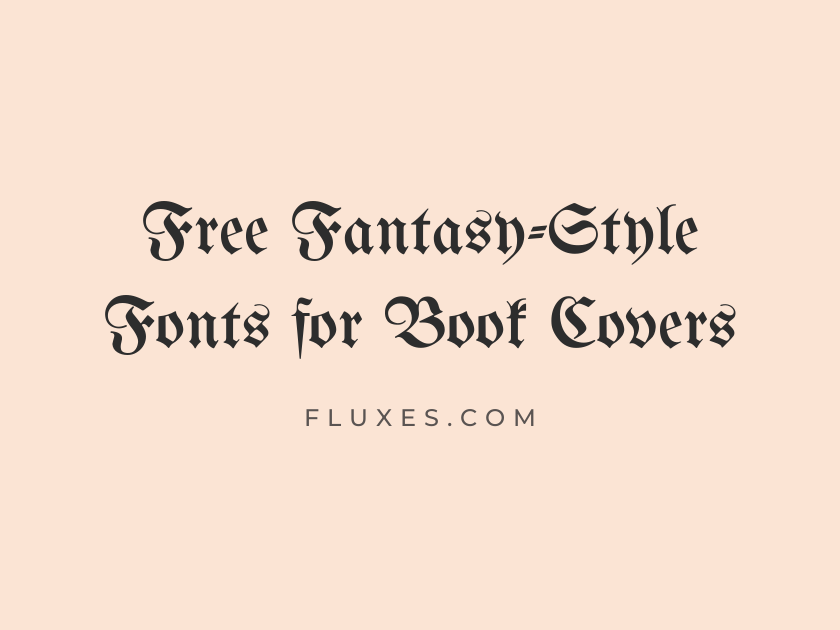
72 Best Free Fantasy-Style Fonts for Book Covers
The best fantasy book covers earn their spell before a reader ever cracks the spine, and most of that magic comes down to type. A blackletter flourish, a carved-stone capital, a hand-inked swash: these details signal genre, mood, and era faster than any blurb. Every font recommended here is free to download on Google Fonts, so indie authors, small presses, and cover designers can build a full title-and-subtitle system without licensing headaches.
1. UnifrakturMaguntia
This is the blackletter that launches a thousand D&D campaign covers, and for good reason: its jagged, ink-heavy strokes feel carved by a medieval scribe rather than drawn on a screen. Reserve it for short titles set large; at body-copy sizes the dense verticals turn to visual noise.
2. UnifrakturCook
A slightly rounder, friendlier cousin to UnifrakturMaguntia, this one softens the gothic edges just enough to stay legible on busy cover art. It pairs nicely with a clean sans for author name and tagline, letting the blackletter carry all the drama alone.
3. Pirata One
Built for pirate lore and swashbuckling adventure, this display face leans gothic without tipping into horror. It suits sea-faring fantasy, treasure-hunt plots, and any cover that wants a weathered, wanted-poster feel.
4. MedievalSharp
A staple of fantasy branding for a reason: it reads as unmistakably medieval without the fussiness of true blackletter. Use it sparingly on covers, since its charm fades at small sizes, but it earns its keep on logos, chapter headers, and title treatments.
5. Grenze Gotisch
A variable gothic display that ranges from thin and etched to heavy and imposing depending on the weight chosen. Heavier cuts feel monumental on epic fantasy covers, while lighter weights work as ominous section dividers inside the book itself.
6. Germania One
Chunky, angular, and unmistakably Germanic in feeling, this face carries the weight of old fortress gates and iron-bound chests. It works best paired with a lighter serif for subtitles, since its bulk can overwhelm a cover on its own.
7. Fruktur
A lighter-touch blackletter with a handwritten, almost fairy-tale quality. It suits cozy or whimsical fantasy better than grimdark epics, especially stories involving witches, folklore, or enchanted forests.
8. Ruslan Display
Inspired by old Russian and Slavic decorative lettering, this face brings a distinct Eastern European fairy-tale flavor that is hard to find elsewhere in the free font world. It is a smart pick for stories drawing on Slavic mythology, ice kingdoms, or folk-horror themes.
9. Eagle Lake
Elegant and calligraphic, this blackletter alternative feels more like illuminated manuscript lettering than a battle standard. It flatters romantic or courtly fantasy where swordplay shares the page with intrigue and ceremony.
10. Cinzel Decorative
Carved from the same Roman-inscription DNA as Cinzel but dialed up with ornamental swirls, this face looks like it belongs chiseled into a temple archway. It is a favorite for mythic and historical fantasy titles that want gravitas without going gothic.
11. Cinzel
The clean, classical counterpart to its decorative sibling, Cinzel channels Roman capitals into something suited to epic and mythological fantasy. It reads beautifully at large title sizes and holds up just as well on spines and author credits.
12. Almendra
Soft, slightly quirky serifs give this face a storybook warmth that feels handset rather than digital. It leans gothic-romantic, making it a natural fit for haunted houses, fae bargains, and Victorian-tinged fantasy.
13. Almendra SC
A small-caps-only variant of Almendra, useful for author names or subtitles that need to feel formal without competing with a louder title font above them. Its texture reads best in short bursts rather than full sentences.
14. Almendra Display
The boldest member of the Almendra family, with thick, ornamental strokes built for headline duty. It has real presence on a cover thumbnail, which matters when most readers first meet a book at postage-stamp size online.
15. Uncial Antiqua
Uncial Antiqua
Modeled on the rounded lettering of early medieval manuscripts, this face evokes monasteries, ancient scrolls, and lore passed down through generations. It suits prologues, in-book chapter titles, and covers built around ancient or forgotten knowledge.
16. Metamorphous
Magic Bends the Rules of Time
Metamorphous
Dense, slightly rune-like letterforms give this font an occult, alchemical mood. It works well for dark academia fantasy, secret societies, and anything involving forbidden spellbooks.
17. Yeseva One
Queens of the Shattered Realms Rise
A bold, old-style display serif with a generous flourish on its curves, striking a balance between elegant and dramatic. It feels at home on romantasy covers that want richness without tipping into full gothic horror.
18. Macondo
Beyond the Veil, Another World Waits
Macondo
Playful and slightly rustic, this face carries a fairy-tale, hand-lettered warmth suited to middle-grade and young-adult fantasy. It avoids looking too serious, which makes it useful for lighter, adventure-driven stories.
19. Macondo Swash Caps
Once Upon a Broken Kingdom
Macondo Swash Caps
The swash-heavy companion to Macondo, best used for a single dramatic word or an opening capital rather than a full line. Drop it into a title’s first letter for an illuminated-manuscript effect without switching fonts entirely.
20. Fondamento
Ink and Parchment, Secrets Untold
Fondamento
A calligraphic, hand-inked face styled after old-world penmanship, ideal for map lettering, letters within the story, or covers built around a journal or grimoire conceit. Its slightly imperfect strokes add authenticity that a cleaner script cannot fake.
21. Caudex
The Chronicles of a Forgotten Age
Caudex
A sturdy, classical serif with wide, confident letterforms reminiscent of old academic typesetting. It anchors a cover well as a subtitle or author-name font beneath a louder, more decorative title face.
• Language support: Latin, Latin Extended, Greek, Greek Extended, Runic, Vietnamese
22. Marcellus
Heirs to a Long-Lost Throne
Understated and refined, this serif carries a restrained regal quality without any of the theatrics of blackletter. It suits political fantasy and courtly intrigue where the story’s tension comes from words, not swords.
23. Marcellus SC
THE COUNCIL OF SEVEN KINGDOMS
Marcellus SC
Marcellus rendered entirely in small caps, useful for author names, series branding, or a subtitle line that needs formality without shouting. Its evenness makes it an easy, low-drama pairing partner for busier display fonts above it.
24. Della Respira
Petals Fall Where the Fae Once Danced
Della Respira
An art-nouveau-inflected serif with delicate, almost botanical detailing on its strokes. It flatters fae, garden-magic, and romantic fantasy covers far better than it does grim battle epics.
25. Vidaloka
A Kingdom Built on Broken Promises
Vidaloka
Cinematic and slightly theatrical, this serif has the confident stance of a movie-poster title card. It reads well at both hero-image scale and thumbnail size, which makes it a dependable workhorse for cover titles.
26. Amarante
Where Shadows Learn to Speak
Amarante
Bold, bubble-edged letterforms give this display face a mysterious, slightly theatrical air unlike anything else on this list. It draws the eye quickly, so it works best on covers with restrained artwork behind it.
27. Milonga
Songs of the Wandering Bard
Milonga
Loose and slightly whimsical, with ornamental serifs that recall old circus or vaudeville posters as much as fantasy manuscripts. It suits picaresque, bard-and-tavern style adventure fantasy with a lighter tone.
28. Aladin
Genies, Djinn, and Desert Magic
Aladin
Inspired by Arabian Nights lettering, this face brings an exotic, lamp-and-desert atmosphere that few other free fonts attempt. Use it thoughtfully and respectfully for stories genuinely set in that tradition rather than as generic decoration.
29. Bilbo
A Hobbit's Journey Begins at Home
Bilbo
Its name alone makes it catnip for Tolkien-adjacent covers, and the loose, looping script does carry a cozy, homely charm well suited to pastoral or cottagecore fantasy. It struggles at very small sizes, so keep it for titles rather than body text.
30. Bilbo Swash Caps
THE SHIRE REMEMBERS EVERY TALE
Bilbo Swash Caps
A swash-capital companion to Bilbo, best used sparingly for an opening letter or a short series name rather than a full sentence. It adds a hand-lettered flourish without needing a second script font.
31. Berkshire Swash
Love Enchanted, Bound by Fate
A rounded, confident script with plenty of swing in its connections, leaning more romantic than mythic. It works nicely on fantasy-romance covers as an accent word layered over a title set in a sturdier serif.
32. Suez One
Empires of Sand and Sorcery
Suez One
A bold slab-like serif with a faint Middle Eastern inscriptional feel, useful for desert-set fantasy, ancient-empire settings, or stories drawing on Egyptian and Near Eastern mythology. Its weight holds up well even when a cover thumbnail shrinks down on a retailer page.
33. Bellefair
Vows Sworn Beneath a Blood Moon
Bellefair
A refined, slightly condensed serif that reads as formal and old-fashioned without going full medieval. It is a good subtitle partner for a bolder decorative title font, adding polish without competition.
34. IM Fell English
An Account of the Wars of Old
IM Fell English
Modeled on actual metal type from the 1700s, complete with subtle irregularities in the letterforms, this face feels genuinely printed rather than digitally drawn. It is an excellent choice for historical fantasy or any cover styled as a found or ancient document.
35. IM Fell DW Pica
Herein Lies the True History
IM Fell DW Pica
A slightly wider-set relative in the IM Fell family, with the same antique printing-press character. It suits body copy on a back-cover blurb or an in-book title page as well as it suits a cover.
36. IM Fell Great Primer
Bound in Leather, Sealed in Wax
IM Fell Great Primer
Sturdier and more substantial than its IM Fell siblings, this cut carries enough weight to hold its own as a title font, not just a supporting text face. It pairs naturally with parchment or aged-paper cover textures.
37. IM Fell French Canon
The Grimoire of the Last Alchemist
IM Fell French Canon
The most ornate of the IM Fell family, with elaborate, slightly eccentric letterforms lifted from historical French type specimens. Save it for short display use, since its idiosyncrasies make long lines harder to read quickly.
38. Cormorant Garamond
Elegance Woven from Ancient Magic
A high-contrast revival of classic Garamond proportions, thinned and stretched for display use rather than paragraphs of text. It is a favorite among romantasy and literary fantasy designers who want elegance over ruggedness.
39. Cormorant
The Grace of a Vanished Kingdom
Slightly sturdier than Cormorant Garamond, this cut keeps the family’s refined character while holding up a little better at smaller display sizes. It is a dependable subtitle font beneath a heavier decorative title.
40. Cormorant SC
TALES FROM THE SILVER COURT
Cormorant SC
The small-caps member of the Cormorant family, ideal for an author byline or a series tagline that needs formality without volume. It sits comfortably under almost any decorative title font in this list.
41. Cormorant Upright
Frost and Starlight Over the Court
Cormorant Upright
An unusual italic-inspired upright cut with a cool, glassy elegance, well suited to fae courts, winter kingdoms, or anything touched by ice magic. It is distinctive enough to use as a title font on its own.
42. EB Garamond
A Chronicle of Kings and Conquest
One of the most trusted free serif revivals available, EB Garamond gives fantasy covers and interiors a timeless, literary authority that never feels trendy. It is equally at home as elegant body text inside the book, which makes it a smart single-family choice for authors who want cover and interior to feel connected.
43. Spectral
The Archive of Forgotten Spells
Designed originally for on-screen reading, Spectral brings crisp legibility along with a quiet literary polish that suits serious, character-driven fantasy. It handles subtitle and blurb duty especially well.
44. Playfair Display
Legends Carved into Marble Halls
High contrast between thick and thin strokes gives this serif a dramatic, editorial presence that reads as both classical and contemporary. It is a go-to for fantasy covers that want sophistication over ruggedness, especially in political or courtly storylines.
45. Playfair Display SC
THRONE OF THE FALLEN GODS
Playfair Display SC
Playfair’s small-caps cut, useful for a stately subtitle line or series name beneath a bolder display title. The sharp contrast in its strokes keeps it legible even at modest sizes.
46. Cardo
Words Passed Down Through Ages
Built originally for classical scholarship, Cardo carries an academic, manuscript-like authority well suited to lore-heavy fantasy and world-building-forward series. It reads comfortably as body text too, which is rare among fonts with this much historical character.
• Language support: Latin, Latin Extended, Gothic, Greek, Greek Extended, Hebrew, Old Italic, Runic
47. Crimson Text
An Age of Heroes Long Forgotten
A book-typography favorite modeled loosely on old-style serifs, Crimson Text feels literary without drawing attention to itself. It is a solid, dependable choice for subtitles and back-cover copy.
48. Crimson Pro
The Sworn Blade of the Realm
A more refined, variable-weight update to Crimson Text, offering finer control over how bold or light a title line reads. Use a heavier weight for a title and a lighter one for supporting text, all from a single family.
49. Alegreya
Written in Blood and Starlight
Designed specifically for long-form literary reading, Alegreya has a calligraphic warmth and rhythm that feels handcrafted rather than mechanical. It works beautifully as a title font and even better as the interior body text of the finished book.
50. Alegreya SC
A SAGA OF ICE AND EMBER
Alegreya SC
The small-caps counterpart to Alegreya, well suited to formal subtitle lines or series branding that needs to feel literary rather than decorative. It shares enough DNA with its parent family to pair seamlessly on the same cover.
51. Literata
Every Page Holds a New Spell
Literata
Originally built for digital reading platforms, Literata balances warmth and clarity in a way that flatters both cover titles and ebook interiors. It is a smart, low-risk choice for authors who want their fantasy series to look cohesive across print and digital formats.
52. Vollkorn
The Iron Crown Demands a Price
Sturdy and grounded, this German-designed serif carries a no-nonsense weight well suited to grimdark or war-driven fantasy. It never feels precious, which makes it a strong choice for stories built on hardship rather than romance.
53. Old Standard TT
From the Diaries of a Lost Explorer
A serif with genuine early-20th-century academic printing character, useful for fantasy framed as discovered history, expedition journals, or ancient scholarship. It has a slightly worn, textbook feel that newer serifs cannot easily fake.
54. Sorts Mill Goudy
Wisdom Kept by the Old Ones
Sorts Mill Goudy
Based on a historical Goudy design, this serif has warm, humanist curves that feel handset and unhurried. It suits gentler, wisdom-and-lore-driven fantasy more than fast-paced battle epics.
55. Goudy Bookletter 1911
The First Chronicle of the Realm
Goudy Bookletter 1911
True to its name, this face reads like it was pulled from an actual 1911 storybook, complete with old-fashioned proportions and a warm, worn character. It is an excellent choice for interior body text in a fantasy novel that wants to feel timeless.
56. Judson
Guardians of the Sacred Flame
Judson
A compact, sturdy serif with just enough classical character to suit fantasy without leaning fully decorative. It is a practical, versatile choice for series branding across multiple book covers.
57. Gentium Plus
Voices from a Thousand Kingdoms
Gentium Plus
Designed with global literacy in mind, this serif reads cleanly across long passages, making it a strong choice for the actual text inside a fantasy novel as well as its blurb. It carries enough classical warmth to feel at home beside a decorative title font on the cover.
58. Fraunces
Once, Magic Belonged to Everyone
A soft, old-style serif with an almost storybook wobble in its curves, Fraunces feels warm and handcrafted rather than carved or ancient. It flatters cozy fantasy, fairy-tale retellings, and character-driven stories that favor heart over spectacle.
59. Rozha One
Blessed by the Old Gods
A bold, high-contrast serif with a distinct, slightly exotic character drawn from Devanagari-inspired proportions. It gives covers a mythic, ceremonial weight that feels different from the usual Roman-inscription route.
60. Forum
Councils of War and Whispered Treason
Forum
Blocky and monumental, this face echoes Roman inscriptional capitals in a way that suits ancient-empire fantasy and political intrigue. It works best in all caps and at generous letter spacing.
61. Julius Sans One
THE OATH OF THE SILVER LEGION
Julius Sans One
An unusually thin, elegant caps-friendly sans that offers a restrained, almost architectural contrast to heavier decorative title fonts. It is a dependable choice for a tagline or series name that should not compete with busier cover art.
62. Fanwood Text
A Tale Told by Firelight
Fanwood Text
A quiet, old-style italic-friendly serif built for comfortable reading, better suited to a book’s interior or a subtitle line than to a shouting cover title. Its understated character makes it a reliable pairing partner for almost any decorative display font above it.
63. Butcherman
Blood Moon Rises Over the Ruins
Dripping, distressed edges make this display face an obvious pick for horror-tinged dark fantasy, necromancer plots, or anything set in a haunted realm. Its texture is unmistakable, so use it only when the story genuinely leans grim.
64. Eater
Something Hungers in the Dark
Eater
Rough, chewed-looking letterforms give this face a genuinely unsettling quality suited to monster-driven or cursed-world fantasy. It is intense enough that a single word often does more work than a full title line.
65. Nosifer
The Vampire Lord's Final Feast
Nosifer
Named for a classic screen vampire, this dripping, jagged display font is built for gothic horror-fantasy crossovers. It reads best as a short, punchy title rather than a long phrase.
66. Creepster
Nightmares Given Form and Fangs
A widely recognized horror-display staple, with wobbling, slightly melted letterforms that instantly signal spooky or supernatural fantasy. It works well for younger-skewing spooky fantasy too, since it reads as playful-creepy rather than truly grim.
67. Metal Mania
War Drums Echo in the Abyss
Metal Mania
Sharp, metal-inspired letterforms borrowed from band-poster culture suit grimdark fantasy, demon-hunter plots, or anything with a heavy-metal sensibility. Its intensity works best on covers with dark, dramatic artwork behind it.
68. Griffy
The Goblin King's Twisted Bargain
Griffy
Quirky, slightly cartoonish letterforms with a mischievous edge make this a strong fit for goblin, trickster, or dark-whimsy fantasy stories. It leans younger and stranger than most fonts on this list, which is exactly its appeal.
69. Ewert
Beware the Shadow at the Door
Ewert
Bold, blocky, and slightly unsettling, this display face carries an old horror-poster energy that suits supernatural fantasy with a pulpy edge. It is best kept short and large rather than spread across a long title.
70. Vampiro One
Undying Kings of the Long Night
Vampiro One
Chunky and confident with a faint gothic-horror flavor, this face suits vampire fantasy, undead courts, or any story built around immortality and blood pacts. It holds up well at cover-thumbnail size, which matters for genre recognition online.
71. Jim Nightshade
The Carnival Comes at Midnight
Jim Nightshade
Named for a character straight out of dark-fantasy fiction, this hand-inked, slightly sinister script suits carnival horror, dark fae, and Halloween-adjacent fantasy. It carries enough personality to work as a standalone title font.
72. Emblema One
Sworn to the Order of Shadows
Emblema One
A bold, stenciled slab with a faint military-crest feel, useful for fantasy built around secret orders, guilds, or branded factions. It suits logo-style series marks as much as full titles.
Pairing Fantasy Fonts for a Cohesive Cover
A strong fantasy cover usually leans on two fonts, not five. Let one decorative or blackletter face carry the title, then choose a plain, classical serif for the author name and tagline.
Contrast in weight and texture matters more than contrast in style. A heavy display title reads best above a light, restrained serif or small-caps line.
For series branding, pick one font family early and stay consistent across every book cover. Readers learn to recognize a series by its type before they even register the artwork.
If the same font also needs to work inside the book, favor the more legible literary serifs like EB Garamond, Alegreya, or Literata rather than the heavily decorative display faces.
Building a fantasy cover from free Google Fonts is entirely realistic once the roles are clear: one font to set the mood, one to keep the details readable. Test any shortlist at thumbnail size before committing, since that is how most readers will actually meet the title first.